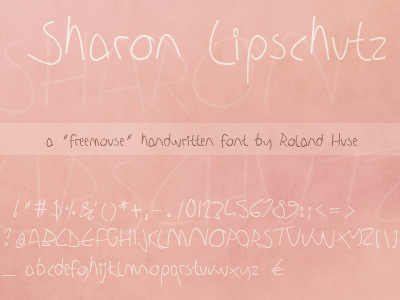
SHARON LIPSCHUTZ is another „freemouse” – handwritten font of mine.The name is a made up name in J.D. Salinger’s „A Perfect Day for a Bananafish”. This font is free for personal use only. For commercial use and/or if extra character or language extension needed please contact me at myhandwritings@gmail.com Also feel free to drop me a line with questions or feedback.Mostly in case of any problems with the characters, pairs, installation etc. That would also help me in my design work, and would be greatly appreciated! Roland Huse, http://www.rolandhuse.com http://www.myhandwritings.com I hope you like this font! \m/ |